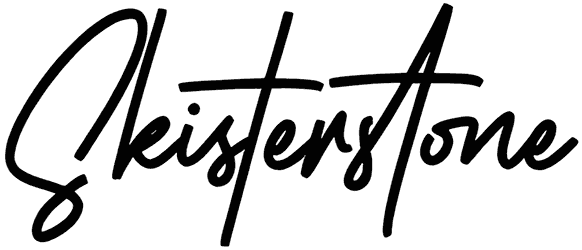
Skisterstone Font
Skisterstone is a tool that can help arouse the audience’s emotions from your final product. This handwritten font can give a raw and graphic feel to your texts and give you unlimited ways to implement creative ideas.
With this script font, you can create projects with personal meaning, which effectively gains the audience’s trust. This font’s illegibility has made it unsuitable for long texts, but it can stand out in all short phrases without numbers on t-shirts, tattoos, and websites.